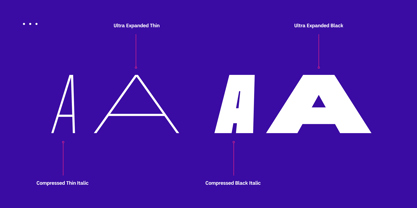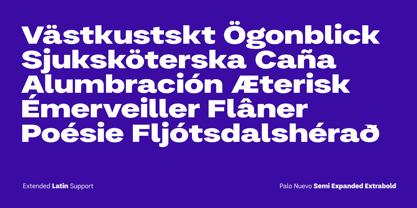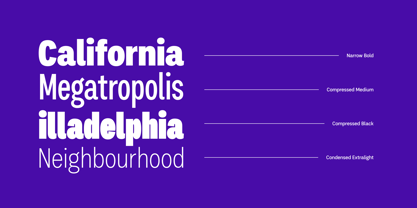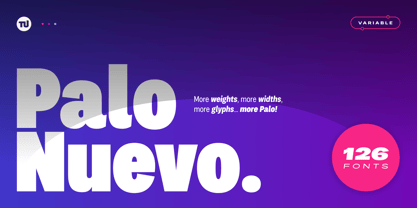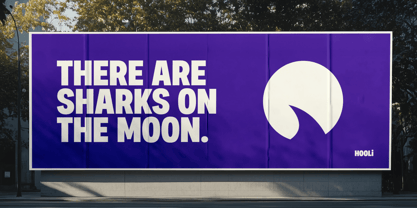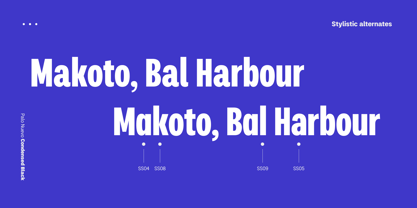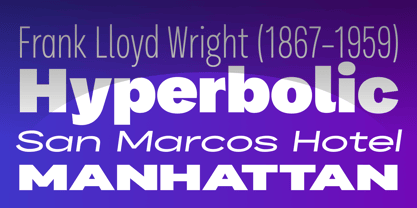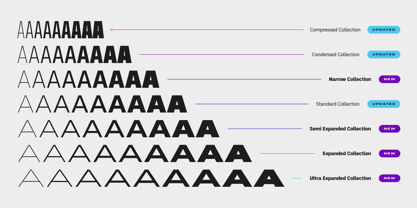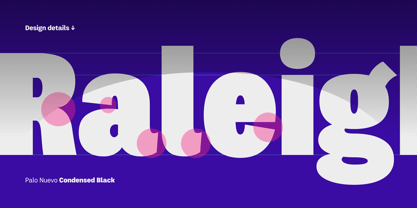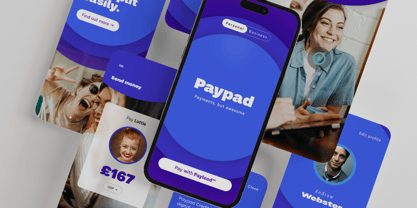
Palo Nuevo
The Palo Nuevo Font Family was designed by Dan Jones and published by TypeUnion. Palo Nuevo contains 127 styles and family package options. More about this family
Palo Nuevo is an expansive redesign of our 2019 release Palo, featuring more weights, more widths, more chartacters, along with a 3-axis Variable font for ultimate customisation.
From Compressed to Ultra Expanded, Thin to Black, Palo Nuevo is a workhorse of a type system that gives you the tools to create, from large impactful messaging to the small details, we've got you covered.
Use Palo Nuevo for your brand to craft eye-catching visuals built for today's design-conscious consumer.
Palo Nuevo Pro comes with many stylistic alternates, along with case-sensitive punctuation, plus language support for Extended Latin.